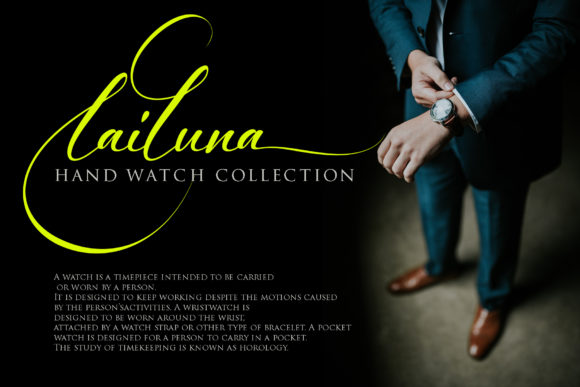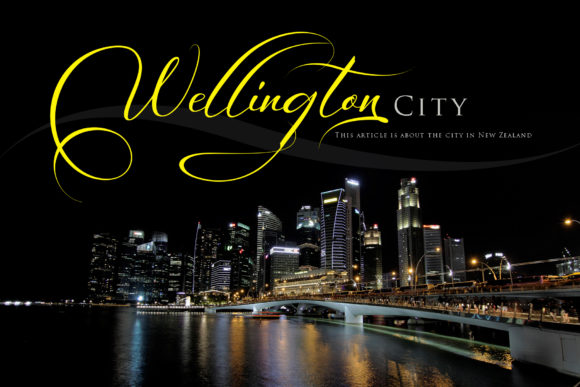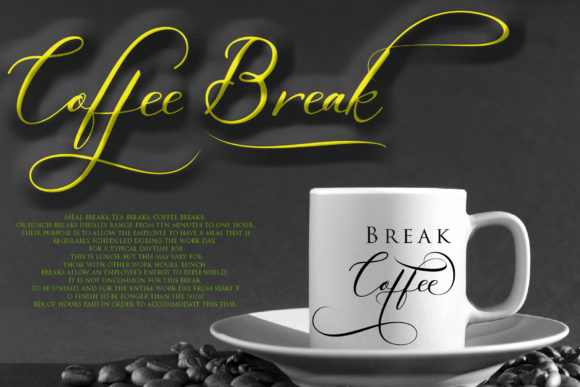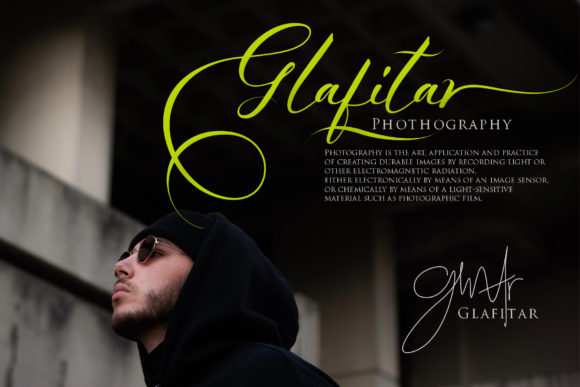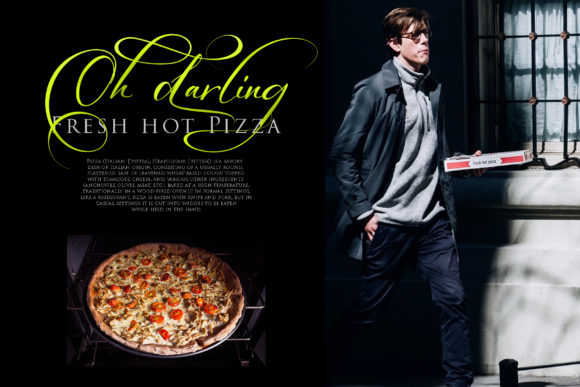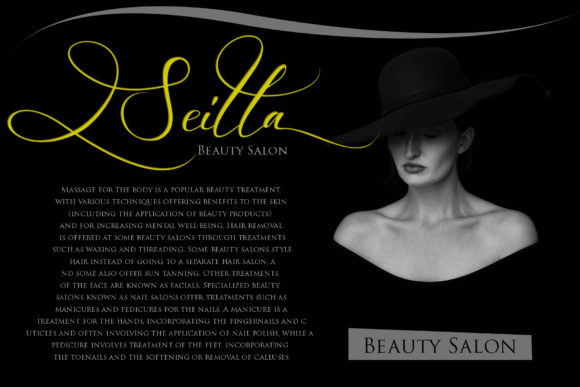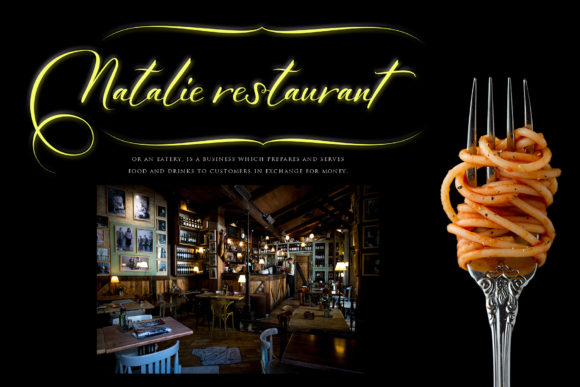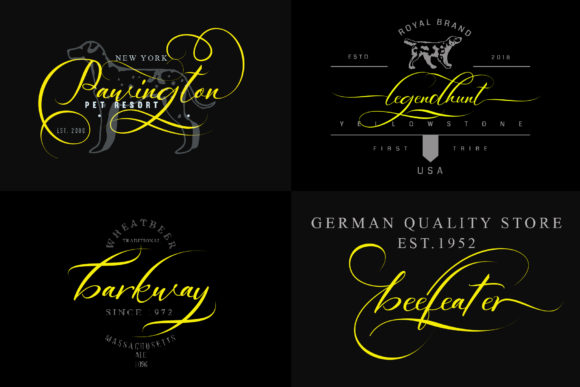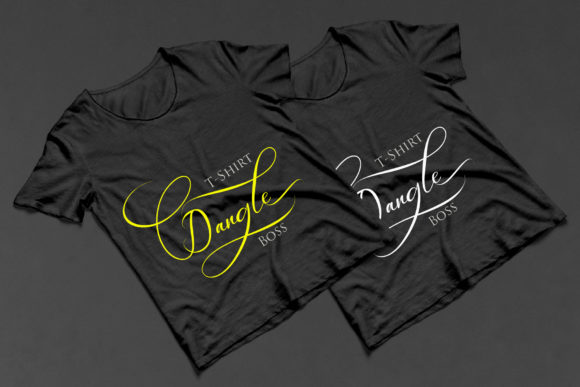
HomeScript FontsBantimange Font Script Fonts Bantimange Font FacebookXPinterestWhatsApp Bantimange Font Poster 2 Bantimange Font Poster 3 Bantimange Font Poster 4 Bantimange Font Poster 5 Bantimange Font Poster 6 Bantimange Font Poster 7 Bantimange Font Poster 8 Bantimange Font Poster 9 Bantimange Font Poster 10 About Bantimange Font Bantimange is a classic script font with an incredibly bold feel. Fall in love with its powerful swashes! DOWNLOAD ON CREATIVE FABRICAThis font is sold and delivered by Creative Fabrica. Font Canyon may earn a commission if you buy through this link. People also explored Reversia Font Ninjutsu Font East Coast Wild Style Font Istanbul Type Font Happy Zone Font The Grateful Font Jayawijaya Font My Future Font Home School Font 339 0 TagsBantimange Font Previous articleMolly & Elroy FontNext articleHeulwen Font LEAVE A REPLY Cancel reply Comment: Please enter your comment! Name:* Please enter your name here Email:* You have entered an incorrect email address! Please enter your email address here Website: Save my name, email, and website in this browser for the next time I comment. Personal Use Free Unispace Personal Use Free Read more about this font Andolas Personal Use Free Read more about this font Aelten Personal Use Free Read more about this font Party Pooper Personal Use Free Read more about this font BLOG Fonts That Capture the Spirit of New York City New York City is more than just a place—it’s an experience, a rhythm, a visual language... Where to Buy American Fonts Online in 2024 How to Install and Use Fonts on Windows, macOS, and Web Projects Free vs Paid Fonts: Why Investing in Premium Fonts Is Worth It